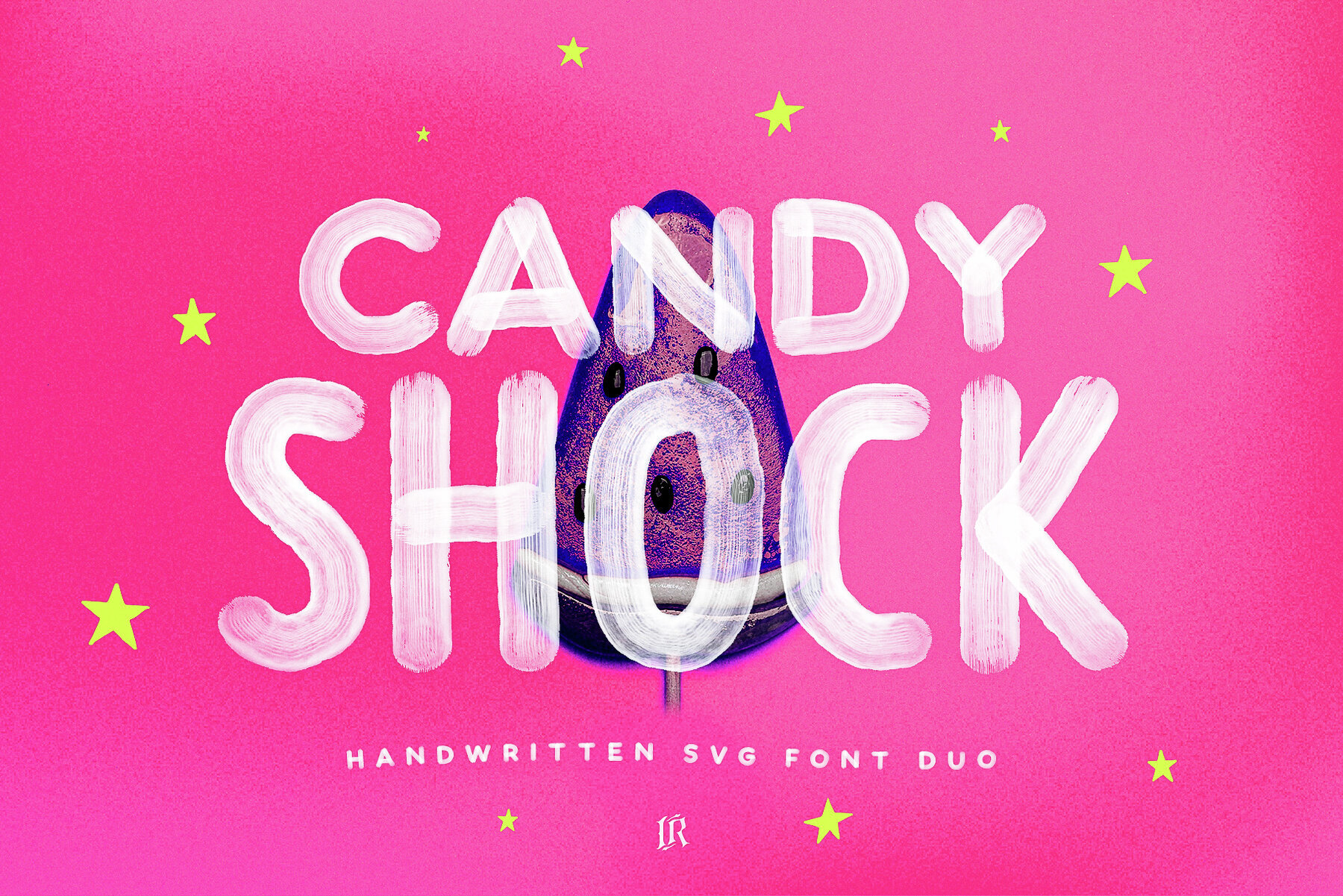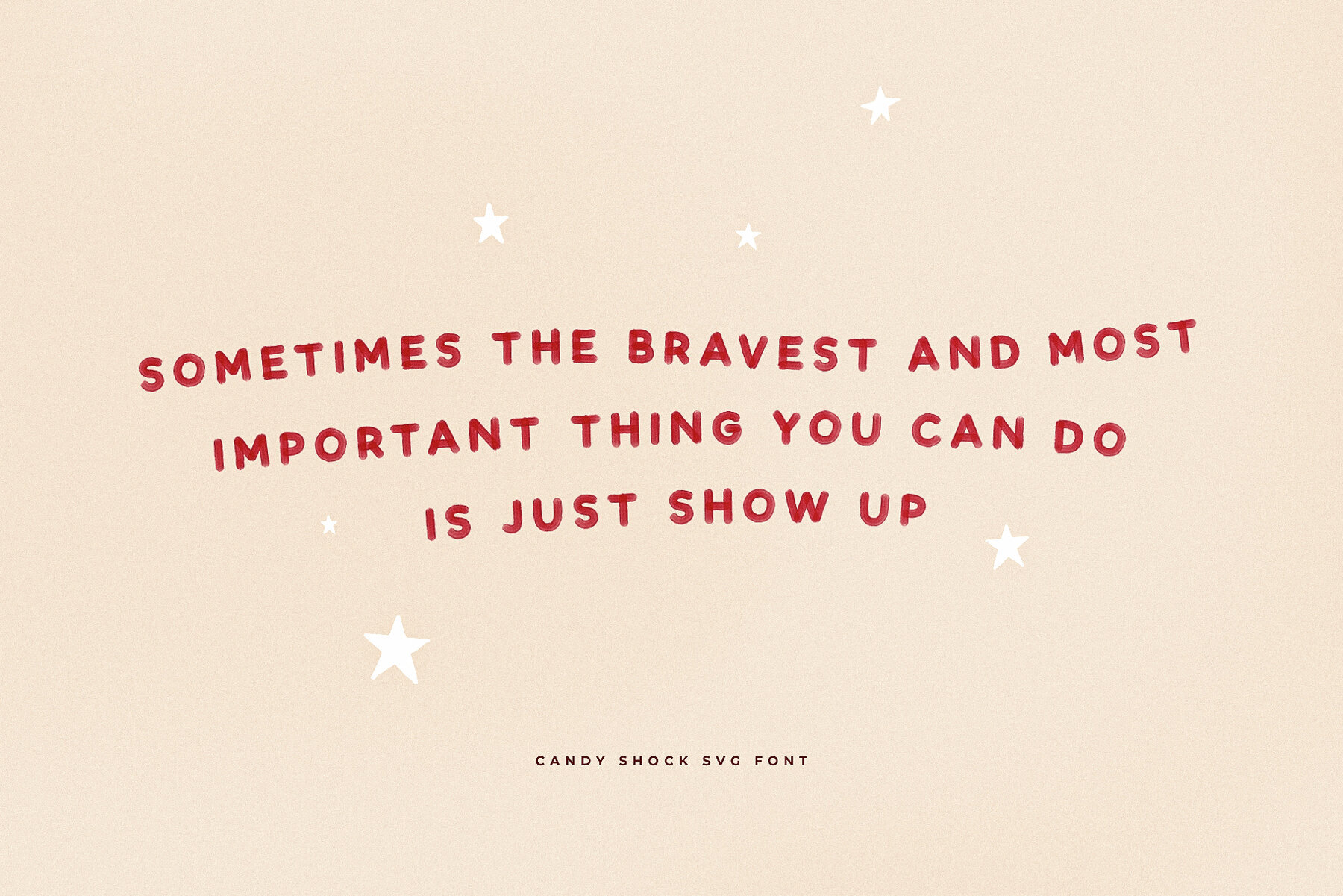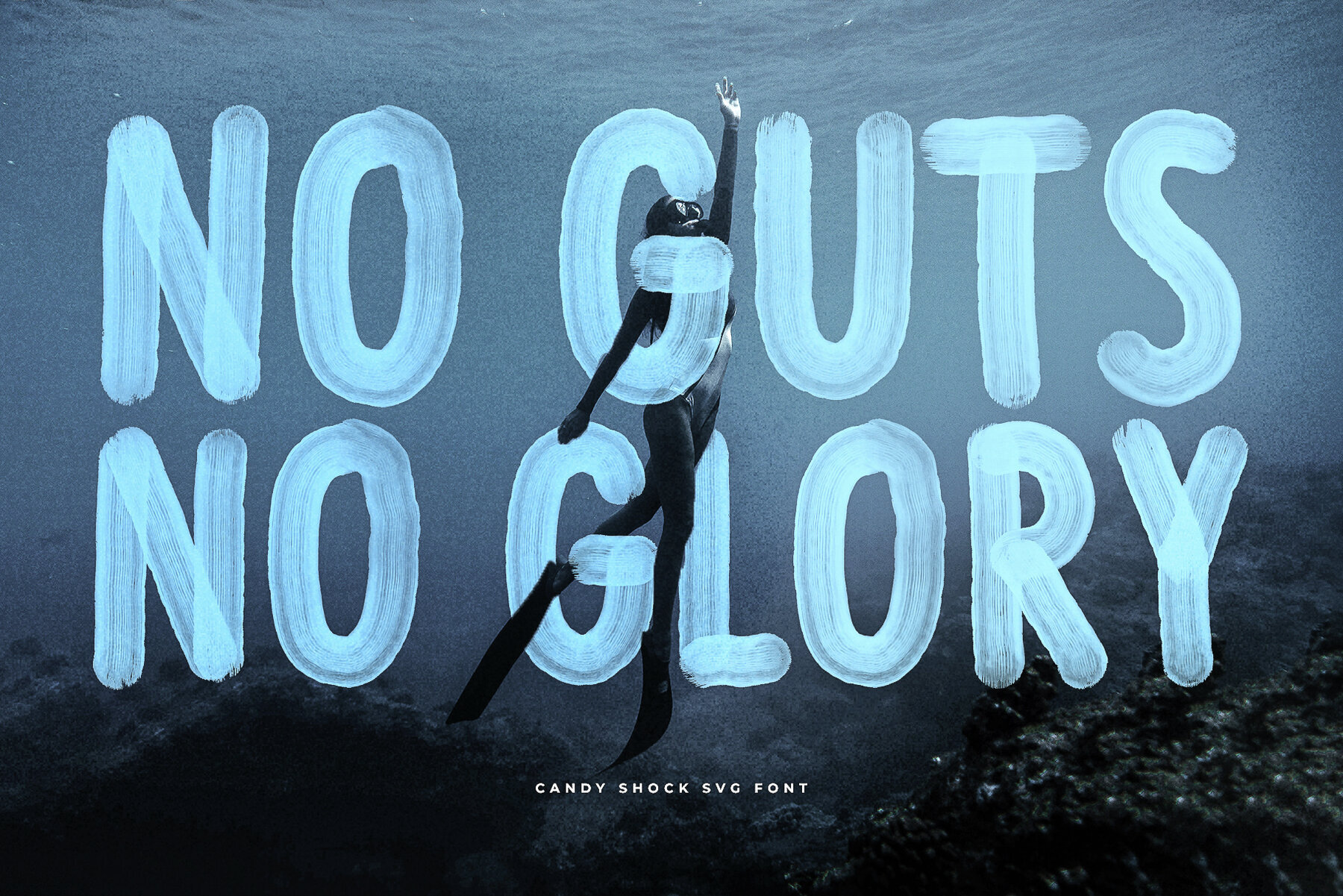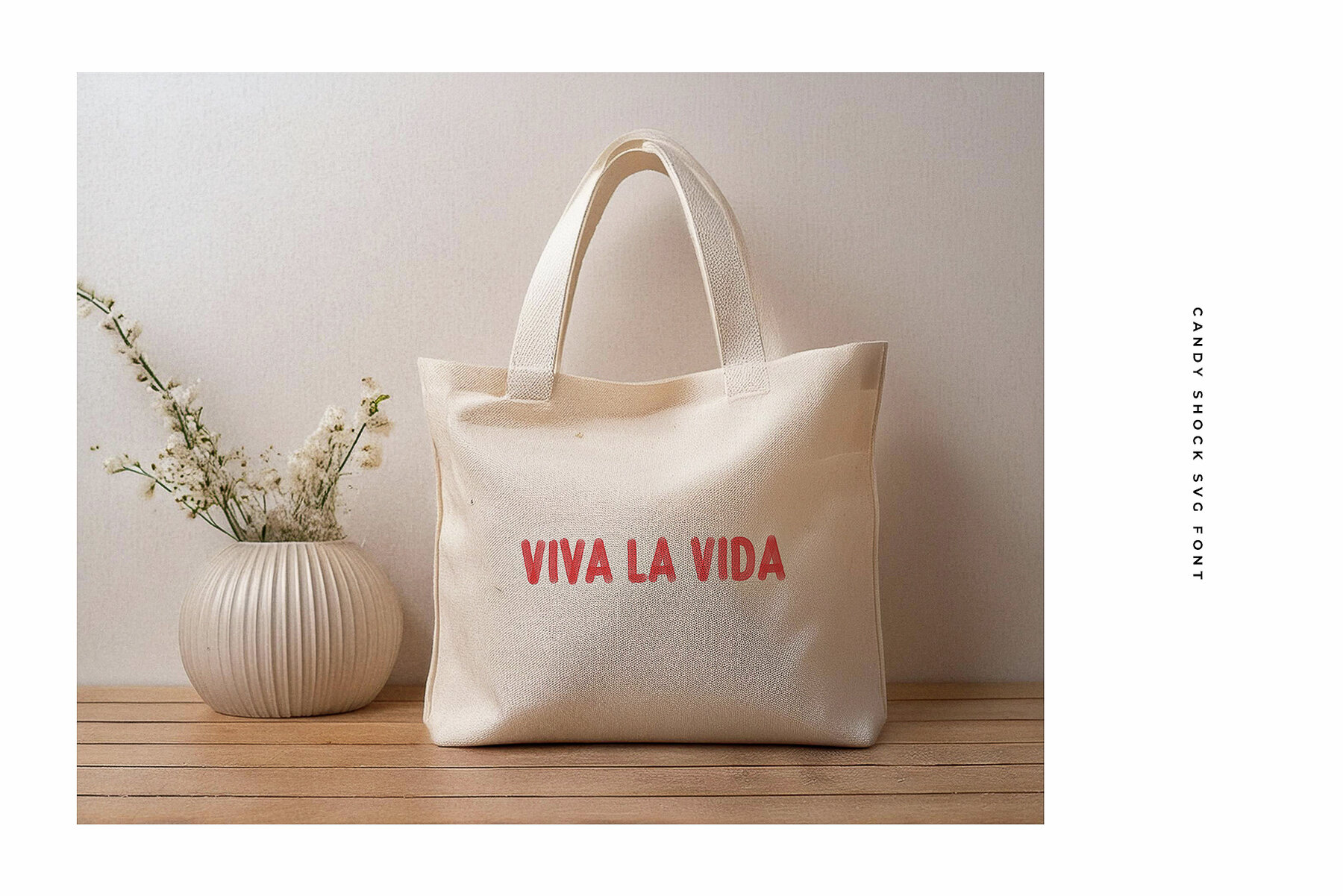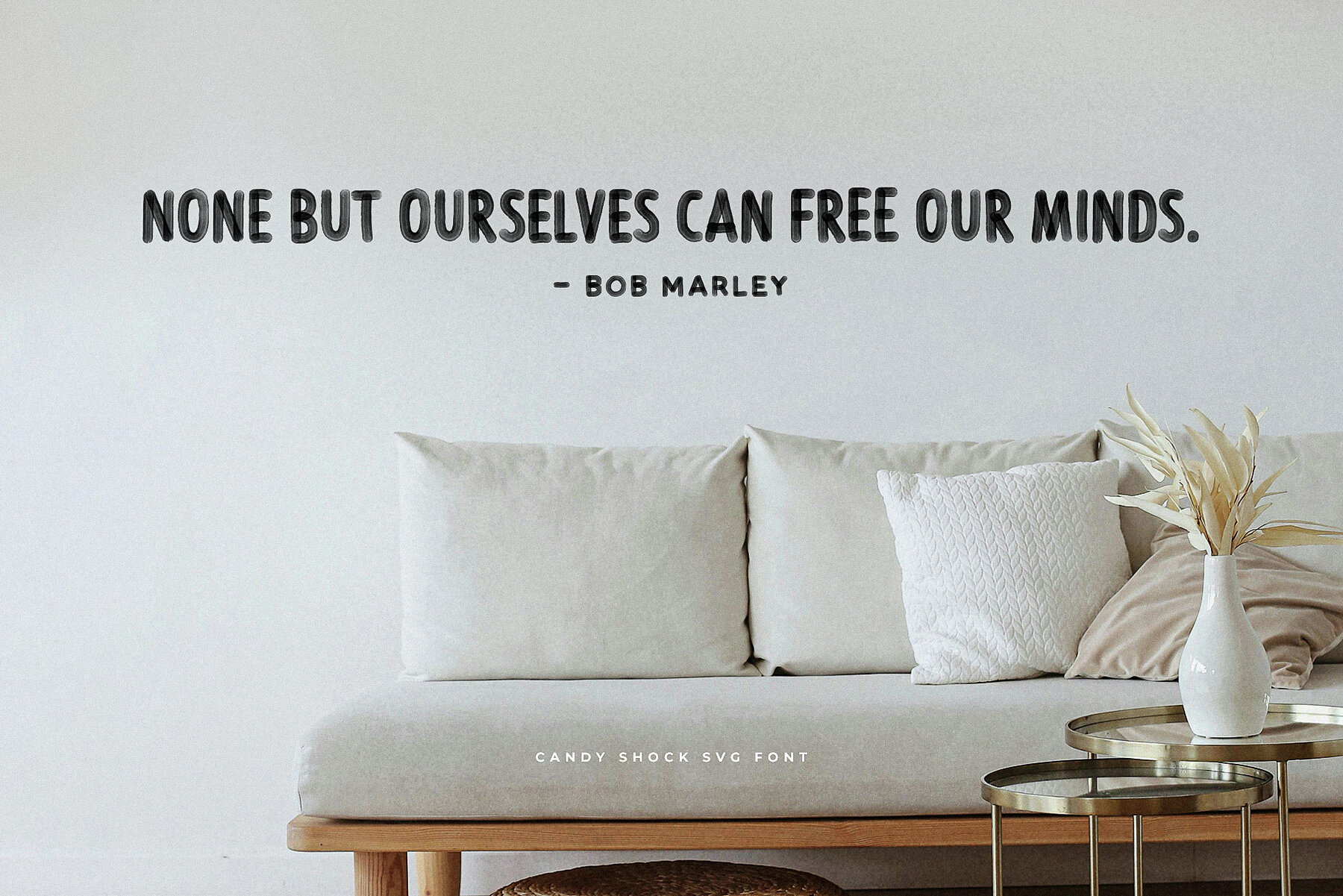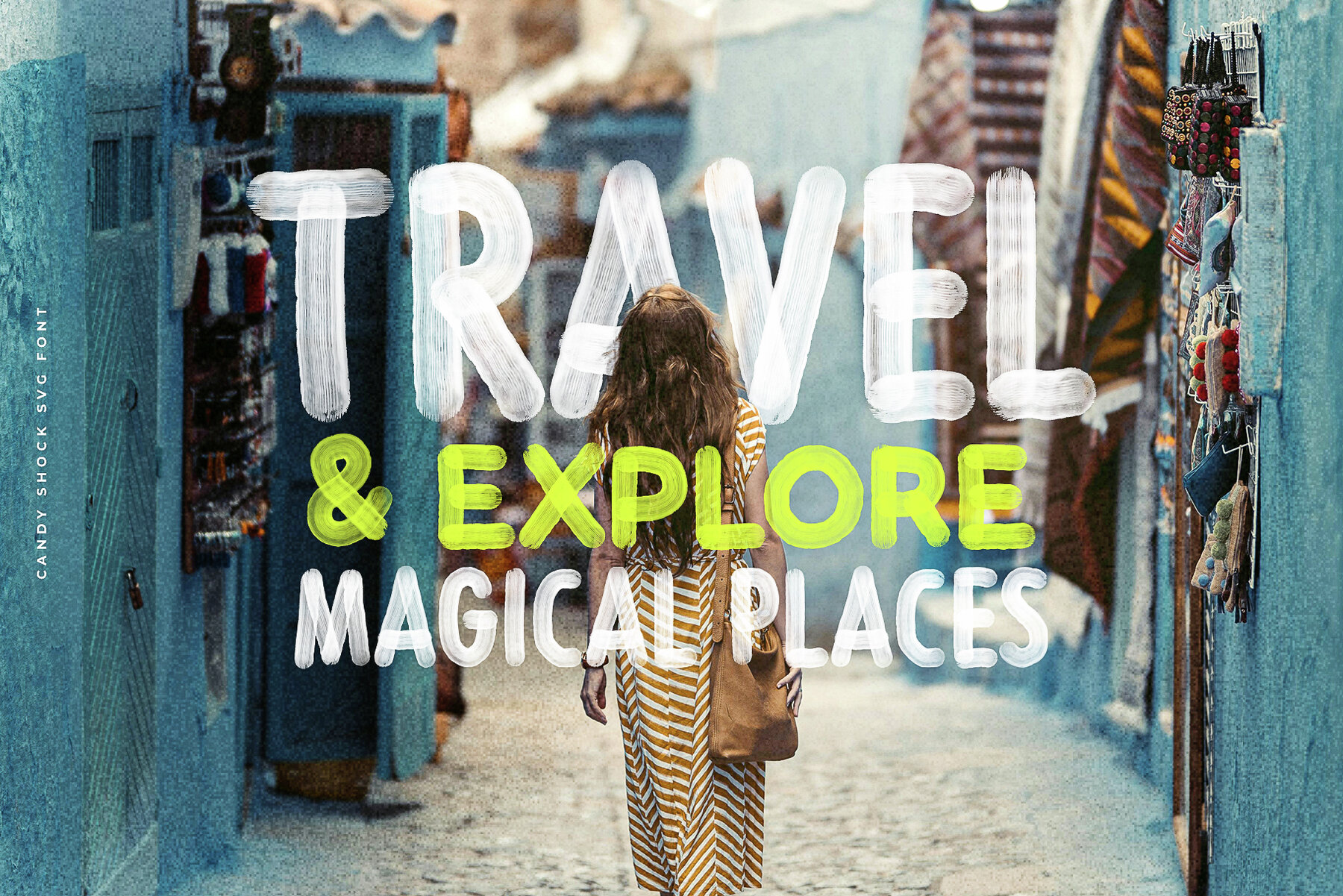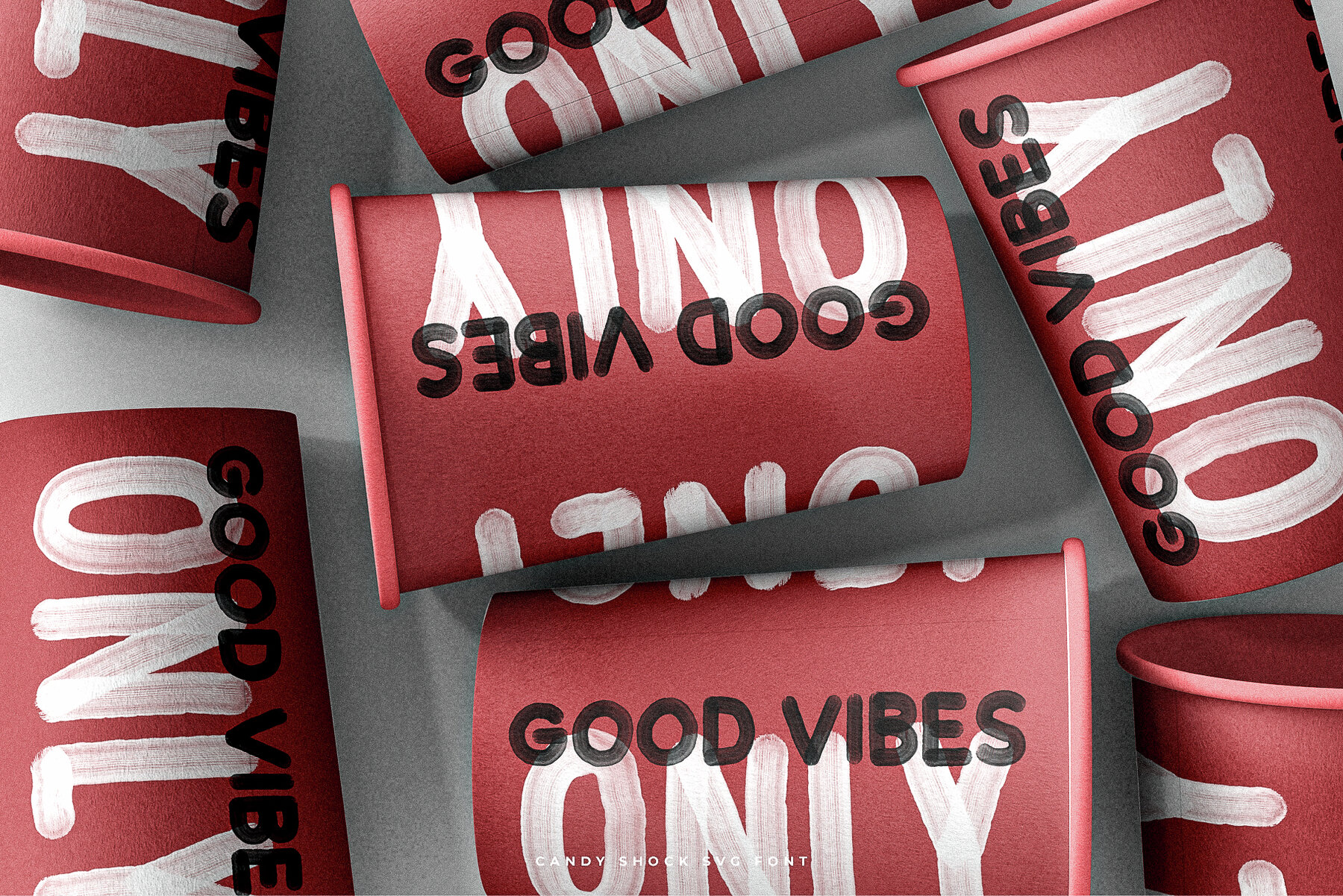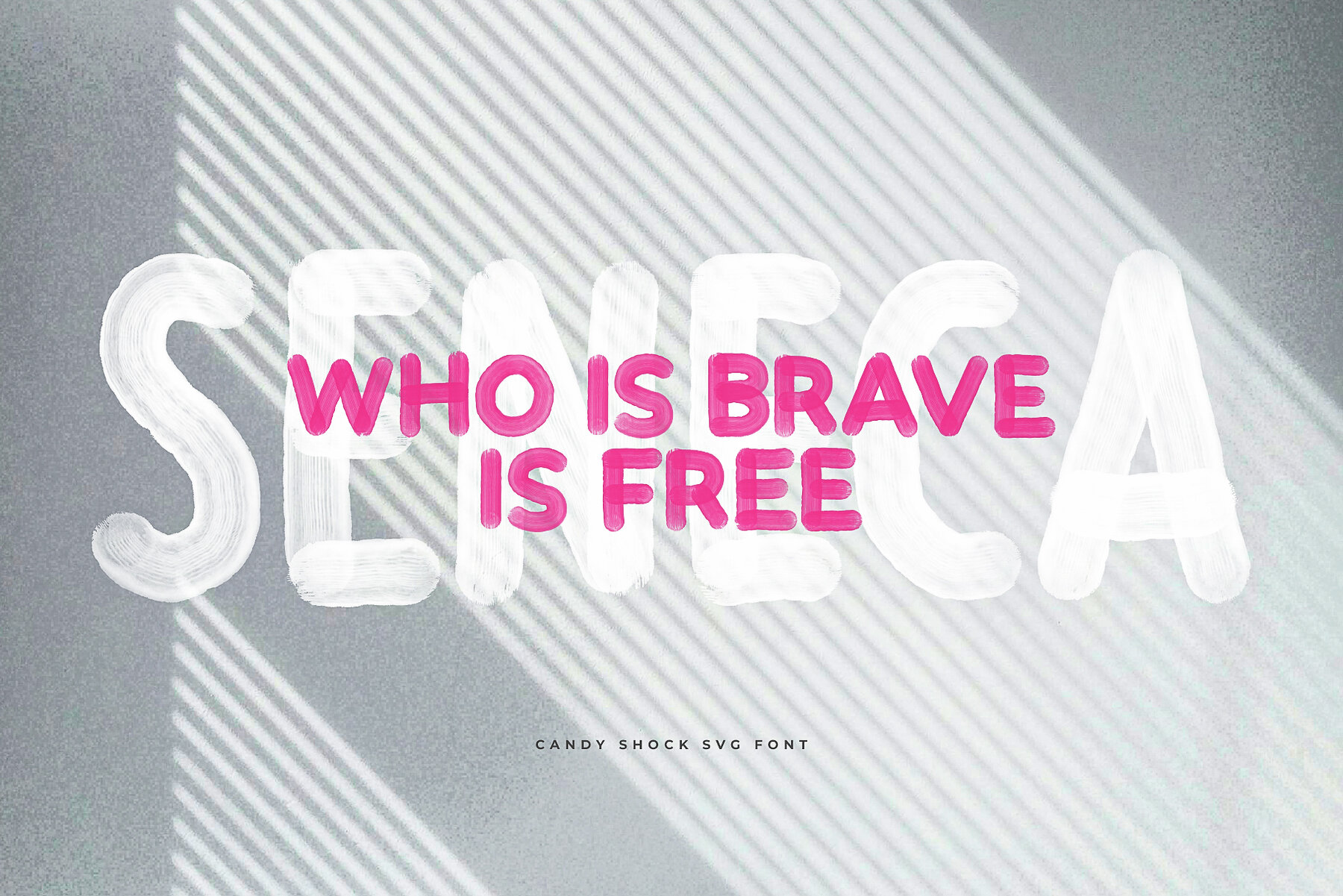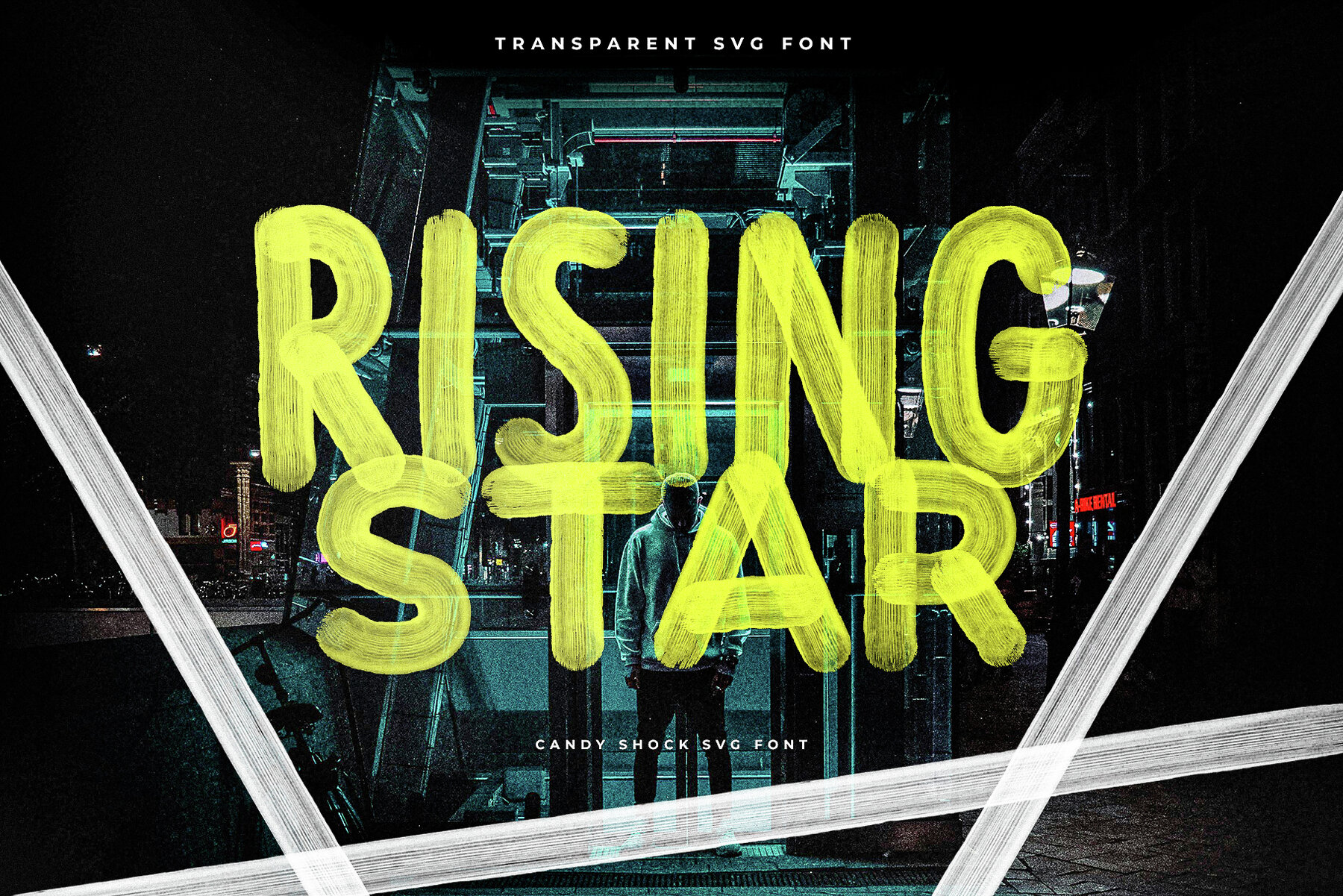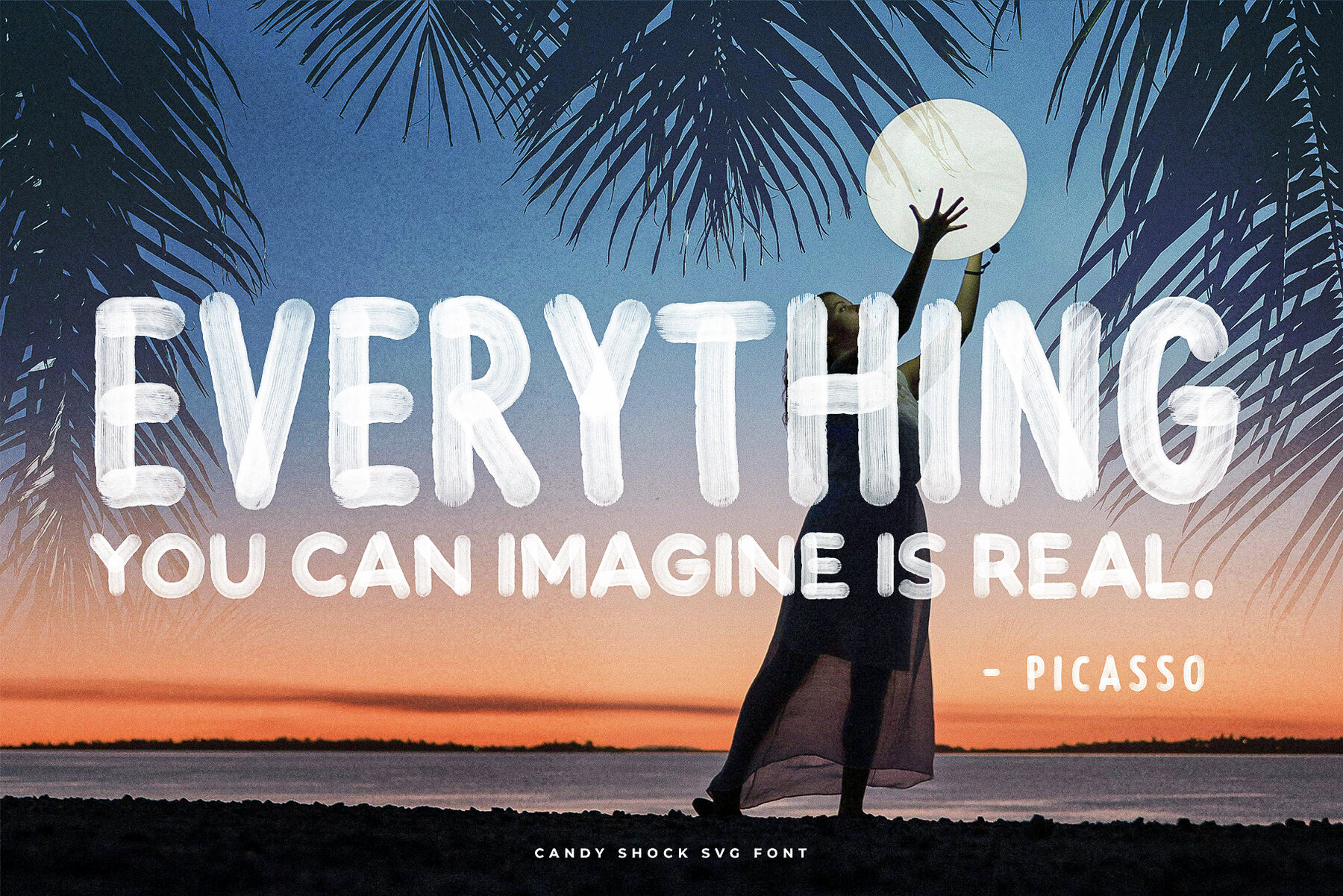
Candy Shock SVG Font
Introducting the new SVG font Candy Shock, hand lettered font with semi-transparent effect. Candy Shock comes in SVG and “normal” vector OTF version. SVG font preserves all the high definition detail of the original handwritten letters. Using OpenType-SVG technology it truly looks realistic. IMPORTANT: The OpenType-SVG format requires Photoshop CC 2017 or Illustrator CC 2018 (or newer). Regular OTF format is also included and work with most of text editing software.